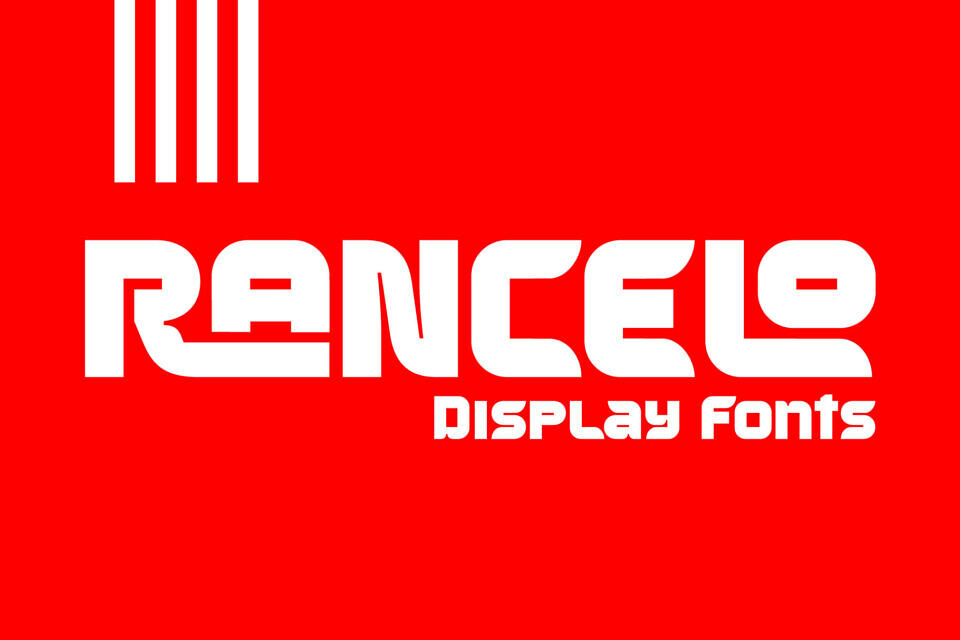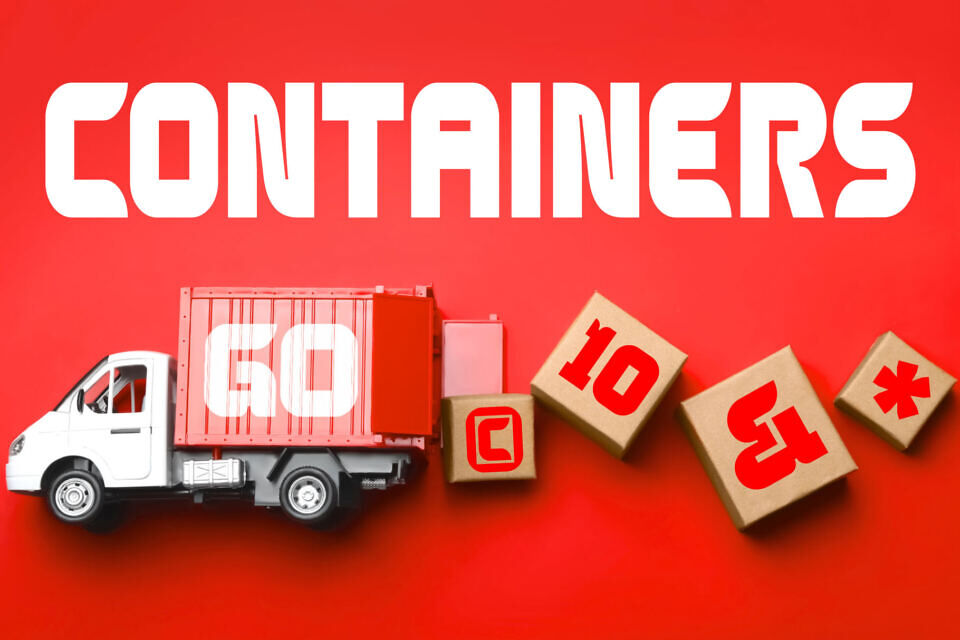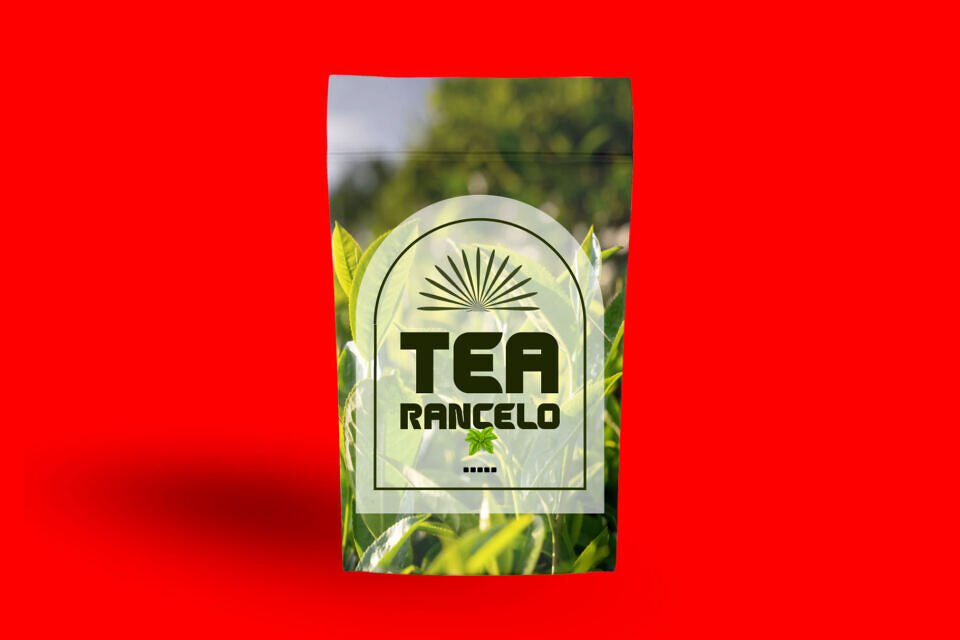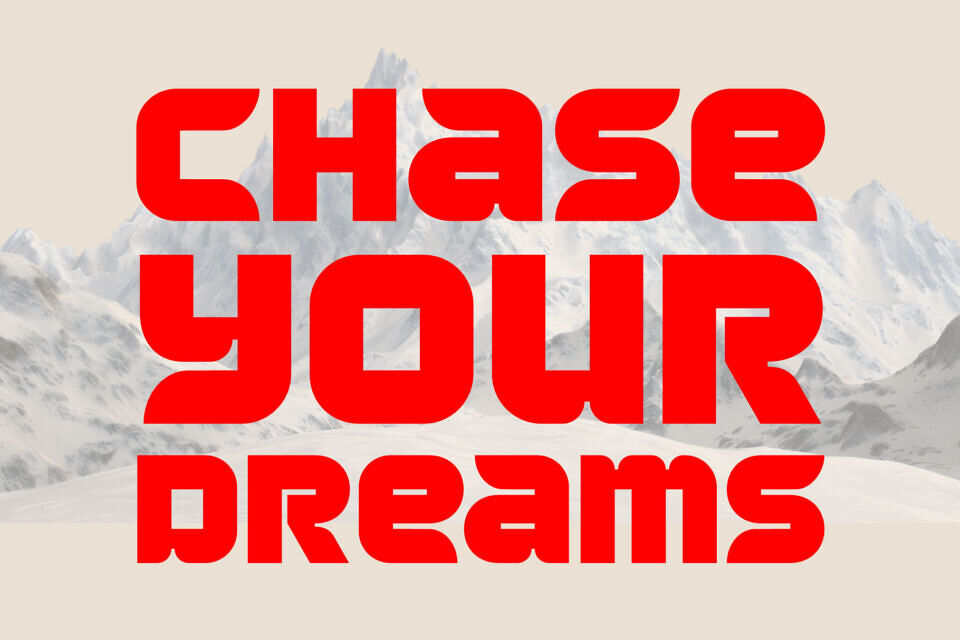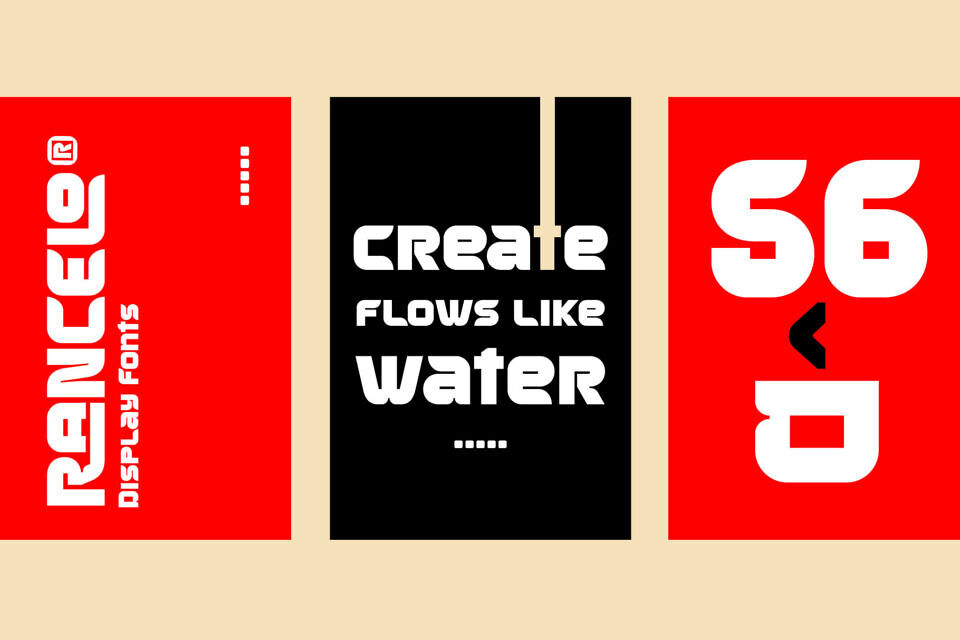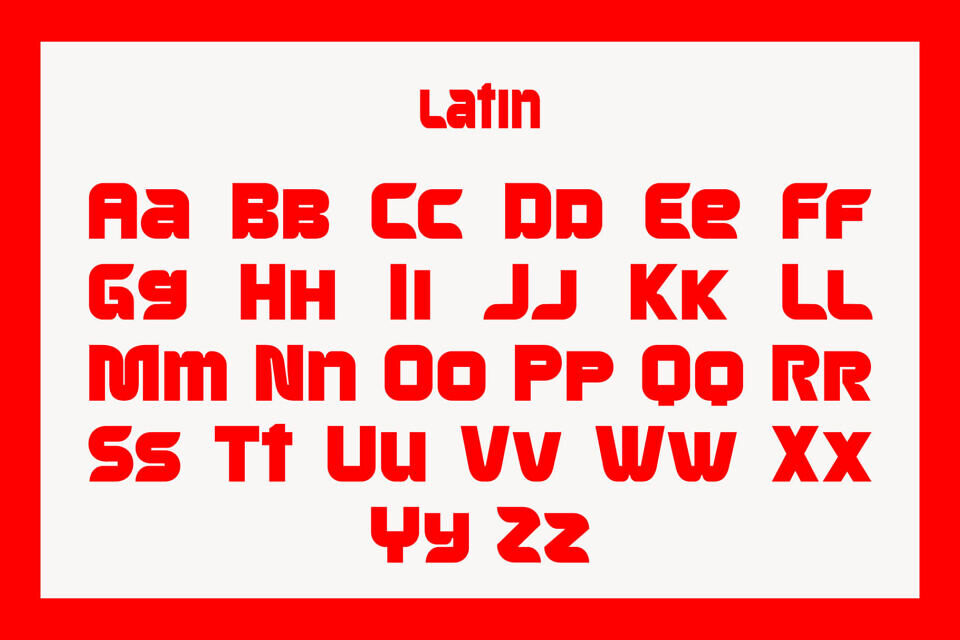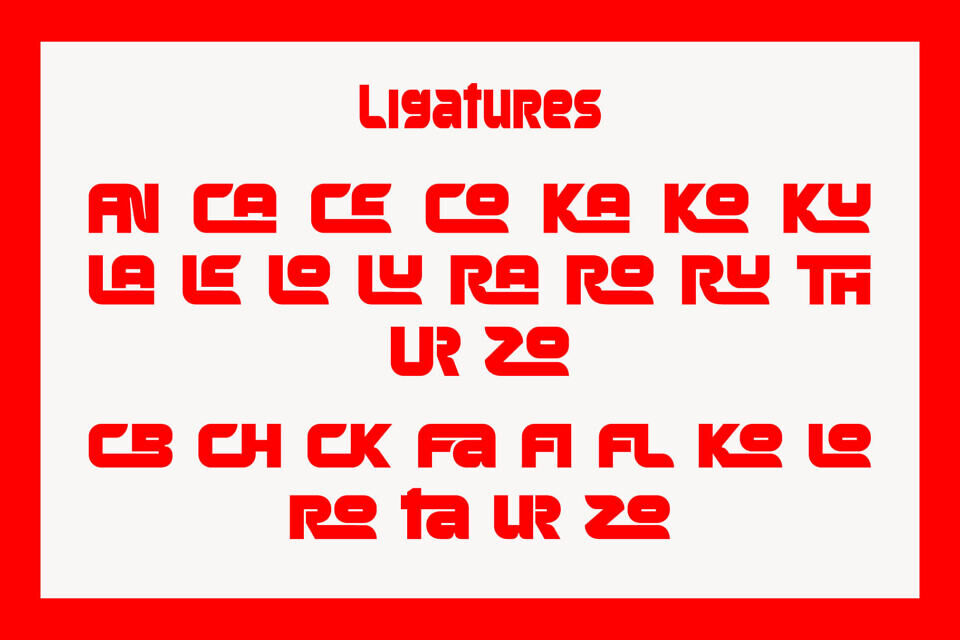
Rancelo Font
Rancelo is a powerful and striking Display Fonts typeface designed to make a memorable impact . With its bold, futuristic curves and distinct style, Rancelo is perfect for projects that demand attention and a modern, creative edge.
Rancelo is an excellent choice for branding and design work, including:
• Logo design and brand identity for a tech startup or fashion label.
• Eye-catching headlines and titles for publications or websites.
• Promotional materials for a creative agency.
• Designing vibrant graphics for a festive or holiday campaign.